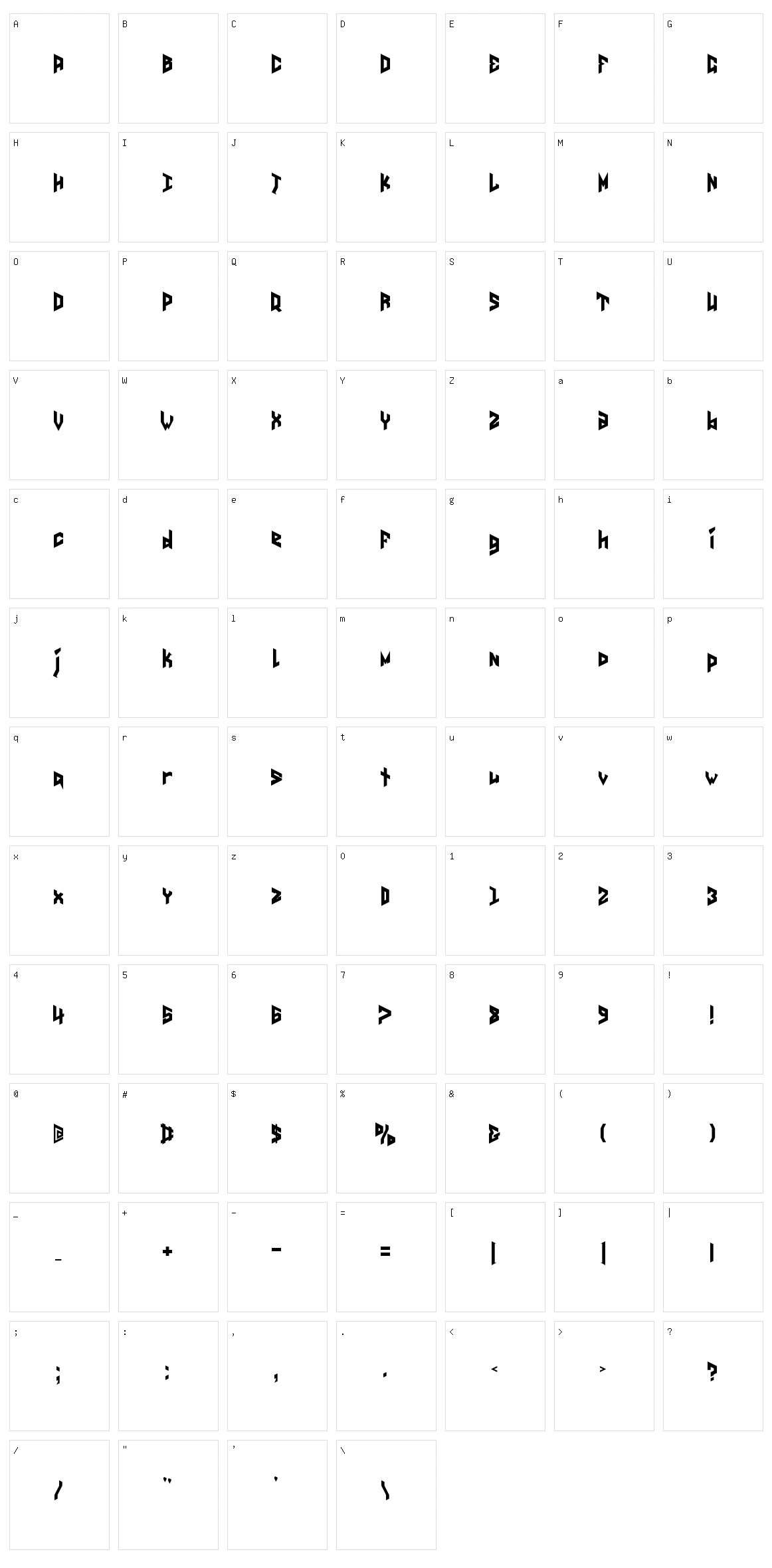
Anticipatio
Designed by: Symbiotic Design
Tiny angular freeware font (& web font) created and Copyright 2014-2019 by Doug Peters, (https://www.Doug-Peters.com & https://Dougs.Work) of Symbiotic Design & the Worthful blog.
This font was created for fun to puzzle together when I am having troubles with other aspects of my life, or am simply too tired to work and yet can't sleep.
The resulting font wound-up much smaller than I expected, as I was just playing around with half sized elements without doubling their size (and not realizing it as the font was zoomed in as I worked on it). But it wound-up with a nearly complete Latin Basic letterset, so I decided to release it as freeware and start another such project.